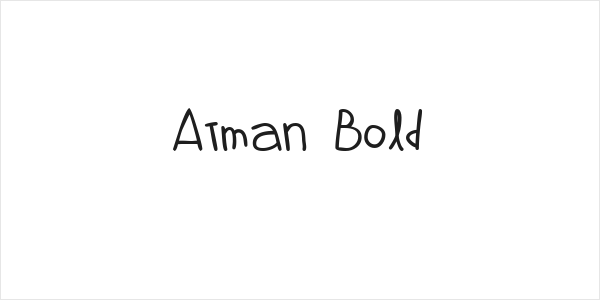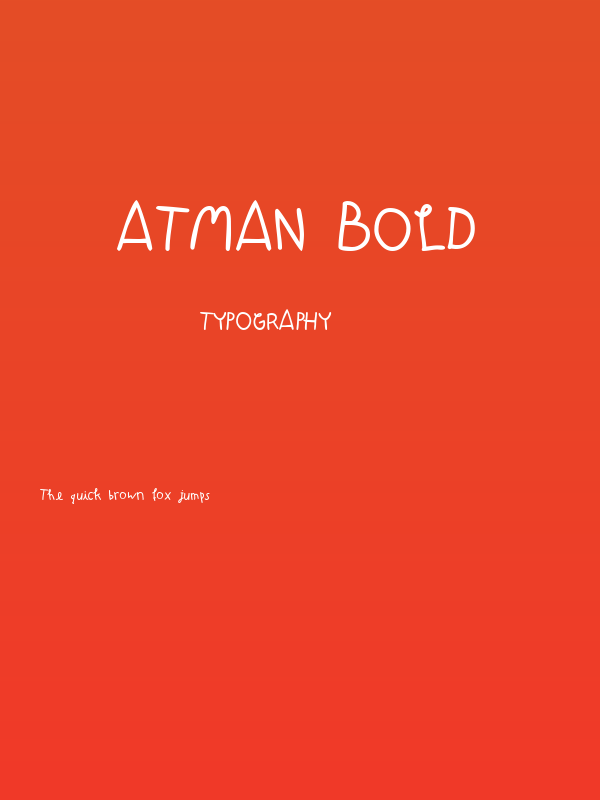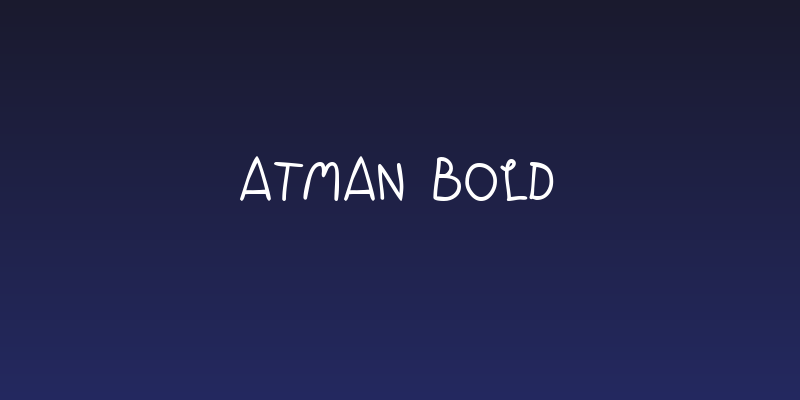
Atman Bold Font
Atman Bold Description
This font features a playful and informal handwritten style, characterized by its rounded and slightly irregular letterforms. The strokes are bold and consistent, giving it a strong presence while maintaining a casual and approachable feel. The uppercase and lowercase letters are well-balanced, with a slight slant that adds to its dynamic appearance. The numerals and special characters are designed to match the overall style, ensuring a cohesive look across all text. This font is ideal for projects that require a friendly and personal touch, such as greeting cards, children's books, or casual branding.
| Overall Style | Casual, Playful |
| Use Case | Headlines, Logos, Informal Text |
| Proposed Projects | Greeting cards, children's books, casual branding, personal projects. |